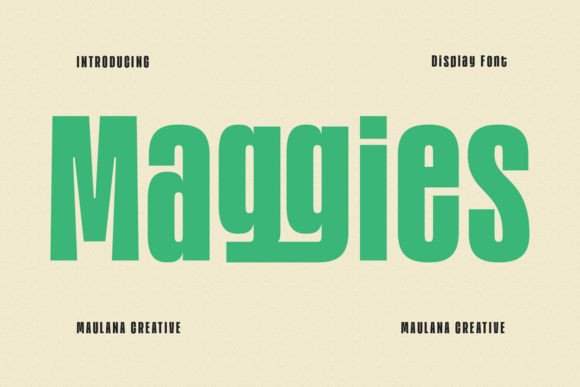
Step into the captivating world of Maggies Font, a modern masterpiece from the creative genius of Maulana Creative. This font is not just a collection of letters but an artistic expression that will elevate your designs to new heights. Maggies Font is a testament to the power of creativity and imagination.
Immerse yourself in the beauty of Maggies Font, a display font that captures the essence of elegance and modernity. Its bold strokes and playful characters, adorned with ligatures, add a touch of whimsy to your designs. Unleash your creativity and let Maggies Font transform your projects into captivating masterpieces.
With its multilingual support, Maggies Font embraces the diversity of languages, making it a global font that speaks to audiences worldwide. Its versatility knows no bounds, making it the perfect font for a wide range of projects, from logos and social media posts to movie titles, book covers, and even lengthy texts.
Whether you're a seasoned designer or just starting, Maggies Font is your perfect companion. Its versatility and user-friendly nature make it accessible to all, allowing you to create stunning designs effortlessly. Experience the joy of creating with Maggies Font and let your creativity soar.